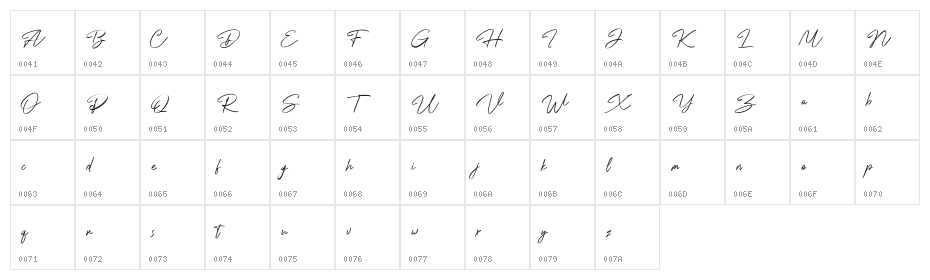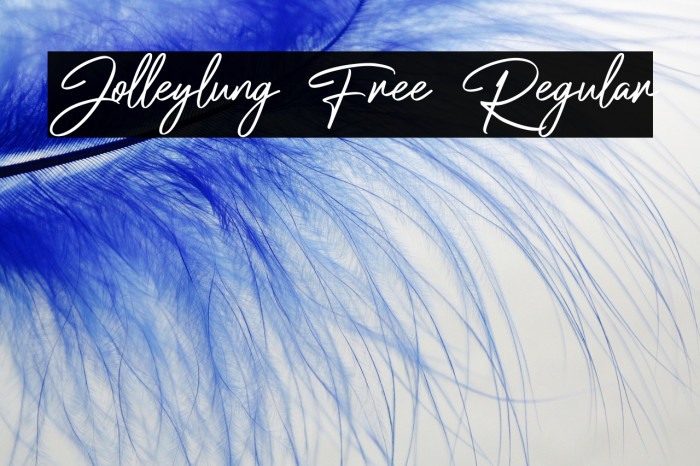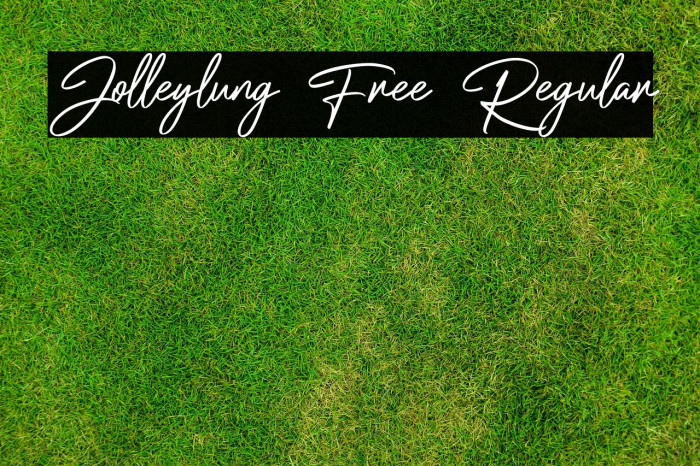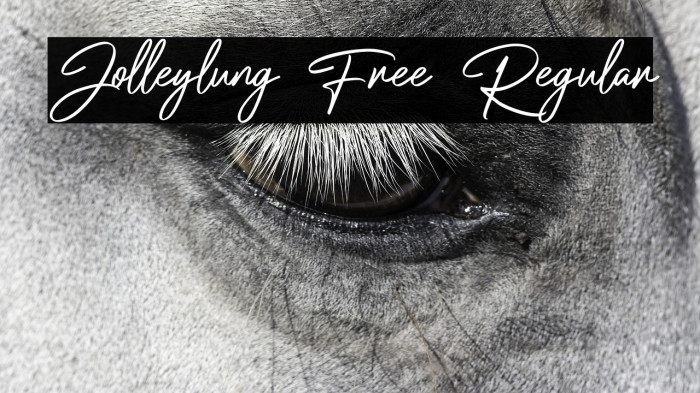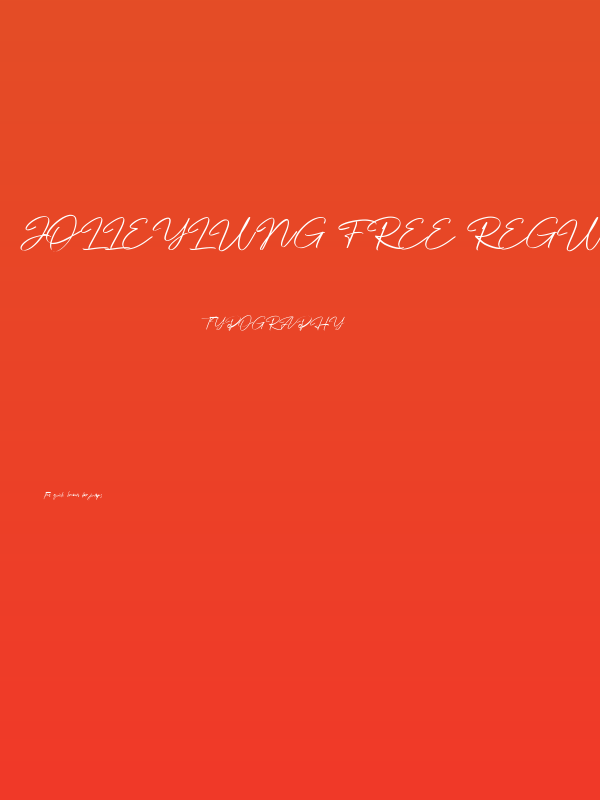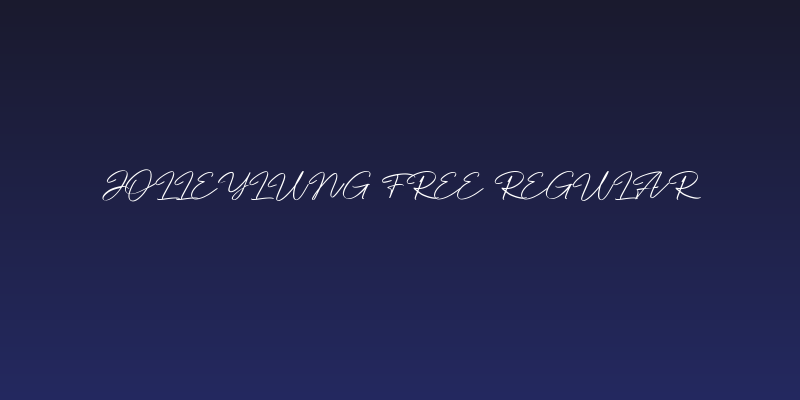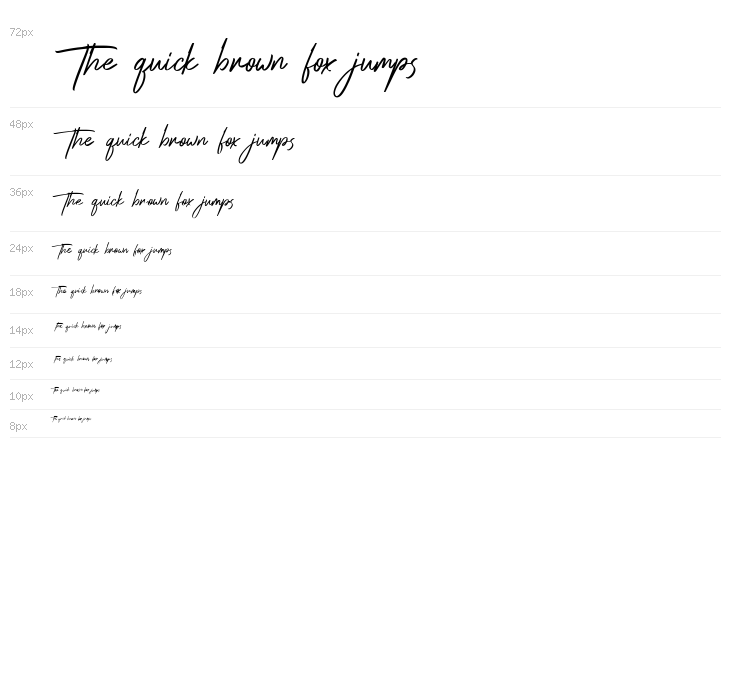
Jolleylung Free Regular Font
Jolleylung Free Regular Description
This font exudes a sense of elegance and fluidity, characterized by its cursive, handwritten style. The letters are interconnected with smooth, flowing strokes that give it a natural and organic feel. The uppercase letters are slightly more elaborate, with decorative loops and swirls, while the lowercase letters maintain a consistent, graceful rhythm. The overall appearance is both sophisticated and approachable, making it suitable for a variety of creative applications. The font's design is reminiscent of personal handwriting, adding a personal touch to any project.
| Overall Style | Elegant, Handwritten |
| Proposed Projects | Ideal for wedding invitations, greeting cards, personal branding, and elegant packaging designs. |